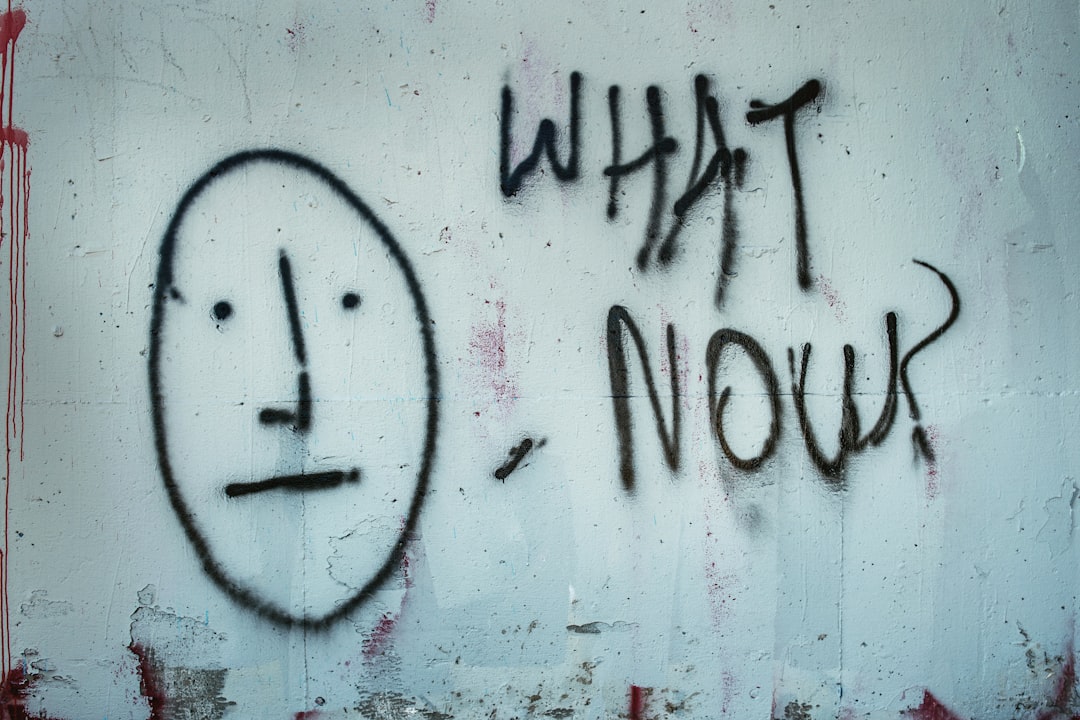
Grunge Fonts: Rough & Distressed Type
Grunge Fonts: Rough and Distressed Type
Quick answerFor grunge type, the strongest picks are the free DaFont classics Trash Hand and October Crow for hand-distressed lettering, plus Special Elite (free, Google Fonts) for a worn typewriter feel. Below are the best free and paid distressed fonts with sources and honest licensing.
Grunge fonts are rough, distressed, and imperfect — eroded edges, ink bleed, spray texture, and torn or scratched letterforms. They power band art, gig posters, zines, streetwear, and anything that needs raw, anti-corporate energy. This roundup names real grunge faces, splits them by texture type (distressed, brush, typewriter, stencil), and is honest about licensing — most authentic grunge fonts are free for personal use only, not commercial.
What Defines a Grunge Font
Grunge type rejects clean vectors. The defining traits are distress and erosion (chipped, eaten-away edges), texture (ink splatter, grain, photocopy noise), and imperfection (irregular baselines, hand-drawn inconsistency). The aesthetic traces back to 1990s grunge and punk DIY culture — Xerox flyers, hand-cut stencils, and ransom-note collage. Because the look depends on rough detail, grunge fonts are display-only: never use them for body text.
Distressed and Eroded Grunge Fonts
Trash Hand (DaFont, free for personal use) is a beloved rough hand-lettered face — uneven, marker-like, and instantly grungy. October Crow (DaFont, free for personal use) delivers an eroded, decayed serif perfect for dark posters. Rumble Brave and similar distressed vintage display faces on DaFont add eroded ornament. For a polished paid option, Eveleth (Yellow Design Studio, paid) is a high-quality layered distressed slab with controllable texture and a genuine commercial license.
Brush and Ink Grunge Fonts
Edo (DaFont, free for personal use) is a fast, dry-brush face full of ink texture and energy. Sketch Block and other rough brush styles bring hand-painted grit. On the free-commercial side, Rock Salt (Google Fonts) and Permanent Marker (Google Fonts) give you a rough handwritten marker feel that is safe for commercial work — not full grunge, but a reliable, properly licensed stand-in.
Typewriter and Stencil Grunge Fonts
Special Elite (Google Fonts, free for commercial use) is a worn typewriter face with ink-bleed character — a clean, licensed way to get a grungy vintage feel. Stardos Stencil (Google Fonts, free) brings a military stencil look that suits punk and industrial design. For heavier distressed stencils, DaFont has many options under personal-use terms.
Grunge Font Picks Compared
Font Texture type Free or paid Best use
Trash Hand Hand-distressed Free, personal use (DaFont) Band art, posters
October Crow Eroded serif Free, personal use (DaFont) Dark posters, horror crossover
Edo Dry brush / ink Free, personal use (DaFont) Energetic brush headlines
Eveleth Layered distressed slab Paid (Yellow Design Studio) Premium vintage branding
Special Elite Worn typewriter Free, commercial (Google Fonts) Zines, vintage copy
Permanent Marker Rough marker Free, commercial (Google Fonts) Streetwear, handmade feel
Rock Salt Rough handwritten Free, commercial (Google Fonts) Casual grunge accents
Stardos Stencil Military stencil Free, commercial (Google Fonts) Punk, industrial design
Spray Paint and Marker Grunge Fonts
For street-art and skate-culture grunge, spray and marker styles carry the energy. Permanent Marker (Google Fonts, free for commercial use) gives a thick, slightly bleeding marker stroke that is safe for client work. Caveat (Google Fonts, free) is a looser handwritten face for scrawled, urgent notes. On DaFont, dedicated spray-paint faces with overspray and drip texture deliver the most authentic graffiti feel, though most are personal-use only. Layering a real spray-texture overlay behind a bold sans often beats hunting for the “perfect” grunge font.
Where the Grunge Aesthetic Comes From
Grunge type grew out of two overlapping movements: the early-1990s Pacific Northwest music scene (Nirvana, Sub Pop Records, hand-made gig flyers) and the 1990s deconstructivist design wave led by figures like David Carson, whose work for Ray Gun magazine treated type as raw, broken, and emotional rather than tidy. Both rejected the polished corporate look in favor of photocopied texture, collage, and intentional imperfection. That heritage is why grunge still reads as authentic and anti-establishment — and why over-clean “grunge” effects look fake. Real texture, real imperfection, and restraint are what sell it.
How to Use Grunge Fonts Without Losing Legibility
Grunge type fights readability, so contain it. Use grunge faces for headlines and short callouts only; set body copy in a clean sans like Inter. Layer real texture — a subtle grain overlay or torn-paper edge — behind clean type rather than relying on the font alone, which keeps things legible. Limit the palette to muted, washed-out tones or stark black-and-white for an authentic DIY feel. Pairing guidance is in our font pairing guide, and for related styles browse the best display fonts.
Classic grunge design relied on photocopied typewriter type, hand-cut stencils, and ransom-note collage rather than specific digital fonts. Modern equivalents that capture that era include Special Elite (typewriter), Stardos Stencil (stencil), and distressed DaFont faces like Trash Hand.
Can I use grunge fonts for body text?
No. Grunge fonts are display faces — their eroded, textured edges destroy readability at small sizes. Use them only for headlines and short callouts, and set body copy in a clean, legible sans like Inter to keep the design usable.